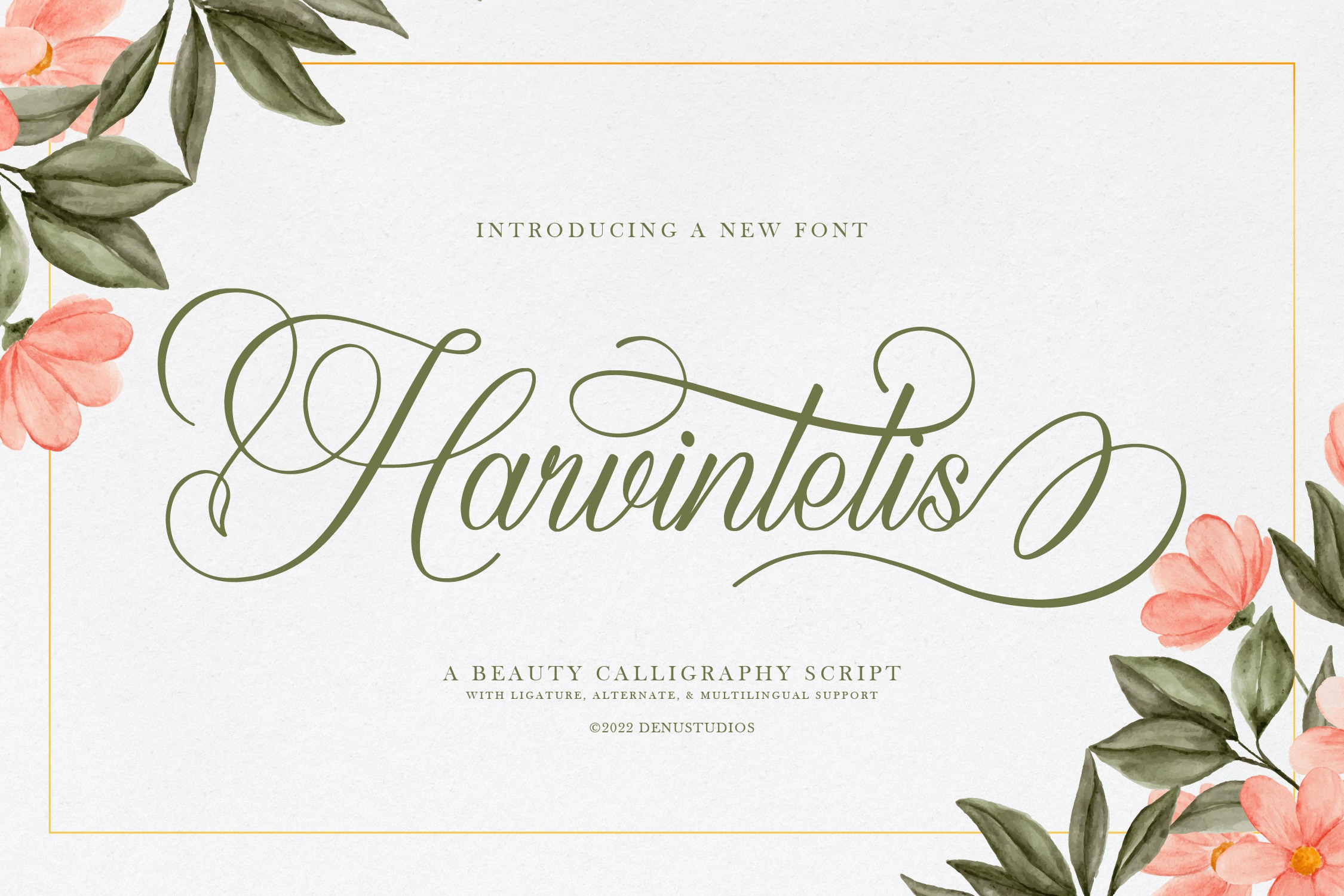
Harvintelis Font
Harvintelis Font is a versatile font designed to adapt beautifully across different design styles, offering dependable readability and balance. Harvintelis | Beauty Calligraphy Script, from Denustudios, suitable for any projects such as: logos, branding projects, homeware designs, product packaging, mugs, quotes, posters, shopping bags, t-shirts, book covers, name card, invitation cards, greeting cards, label, photography, watermark, special events, and all your other lovely projects that need a Callighrapy taste.